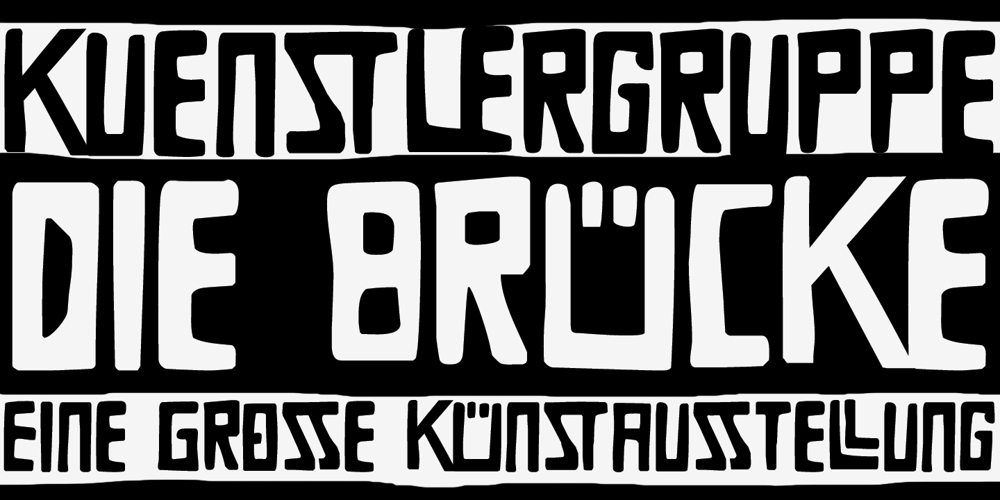
Die Bruecke Font Family was designed by David Kerkhoff and published by Hanoded. Die Bruecke contains 1 styles and family package options. Die Brücke was a group of German expressionists which formed in Dresden in 1905. Members of the group include Erich Heckel, Fritz Bleyl, Ernst Ludwig Kirchner and Karl Schmidt-Rottluff. Much of the group’s work was influenced by primitivism and medieval woodblock printing. Die Bruecke font was based on a printed invitation for an art exhibition from 1906. Although the font is all caps, upper and lower case glyphs differ and can be interchanged. Of course Die Bruecke comes with extensive language support.